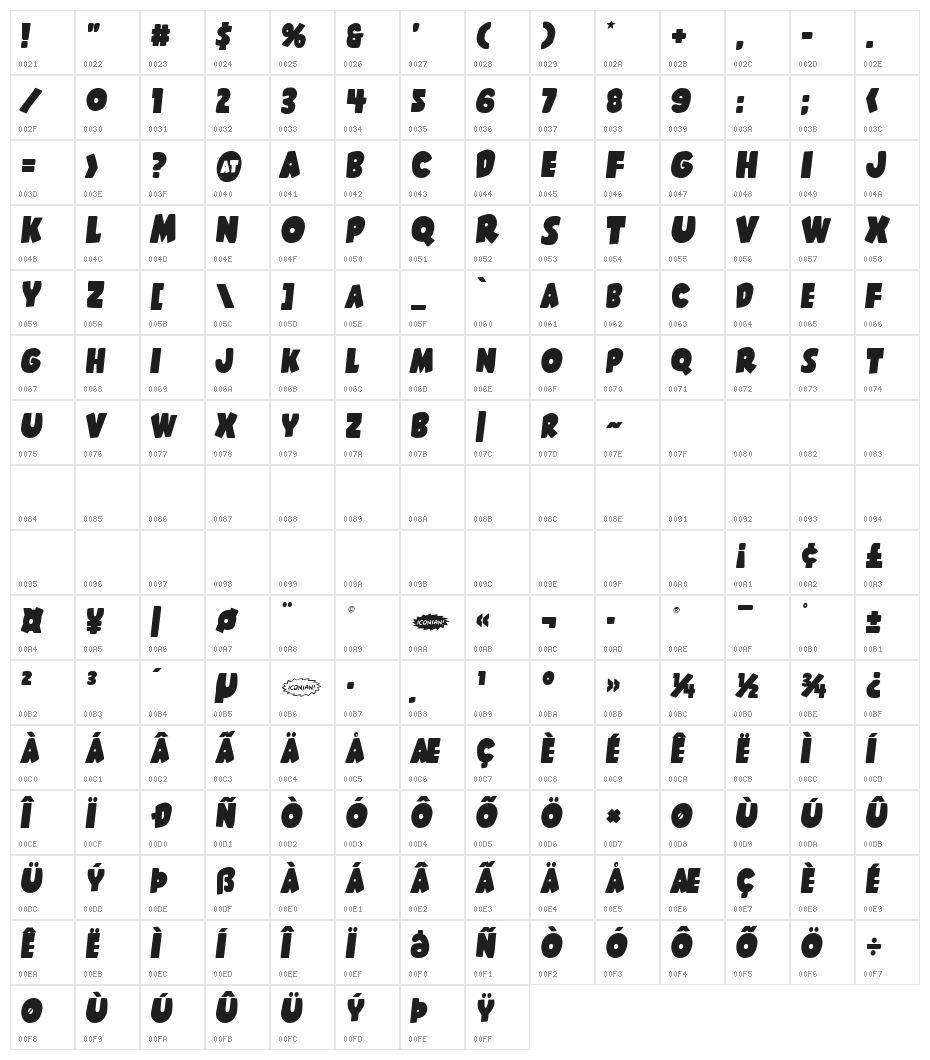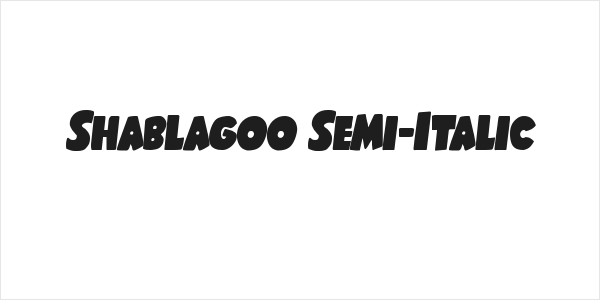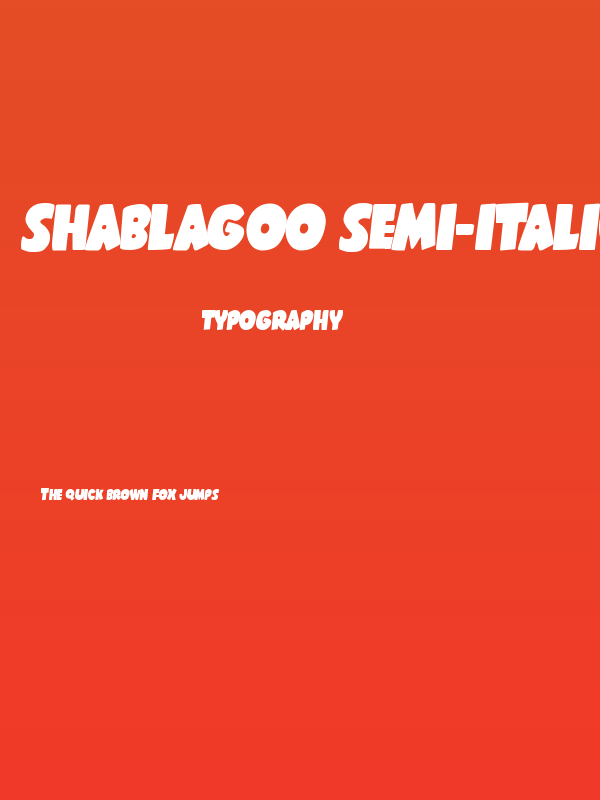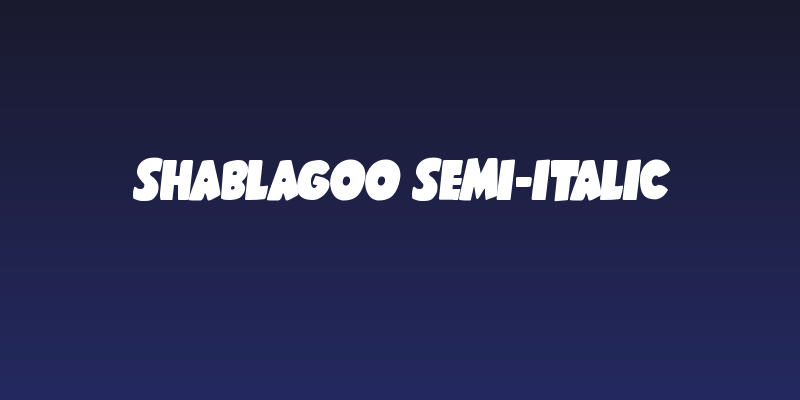
Shablagoo Semi-Italic Font
Shablagoo Semi-Italic Description
This font features bold, playful characters with a slightly italicized slant, giving it a dynamic and energetic appearance. The letters are thick and rounded, with a cartoonish style that makes them stand out. The boldness of the font is consistent across all characters, providing a uniform look. The numbers and special characters maintain the same playful and bold style, ensuring cohesion throughout. This font is ideal for projects that require a fun and engaging visual element, such as children's books, comic strips, or playful branding materials.
| Overall Style | Playful, Cartoonish, Energetic |
| Proposed Projects | Children's books, comic strips, playful branding, posters, and advertisements. |